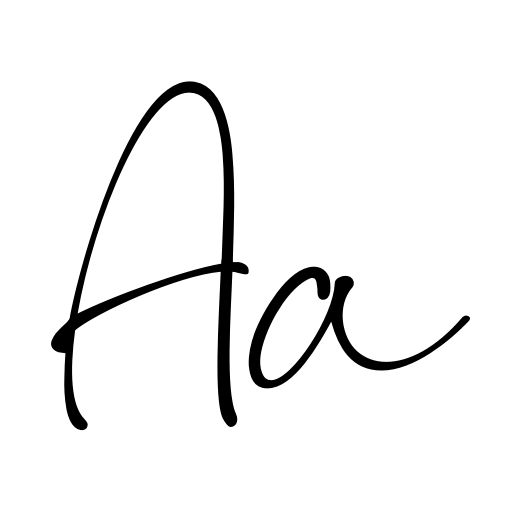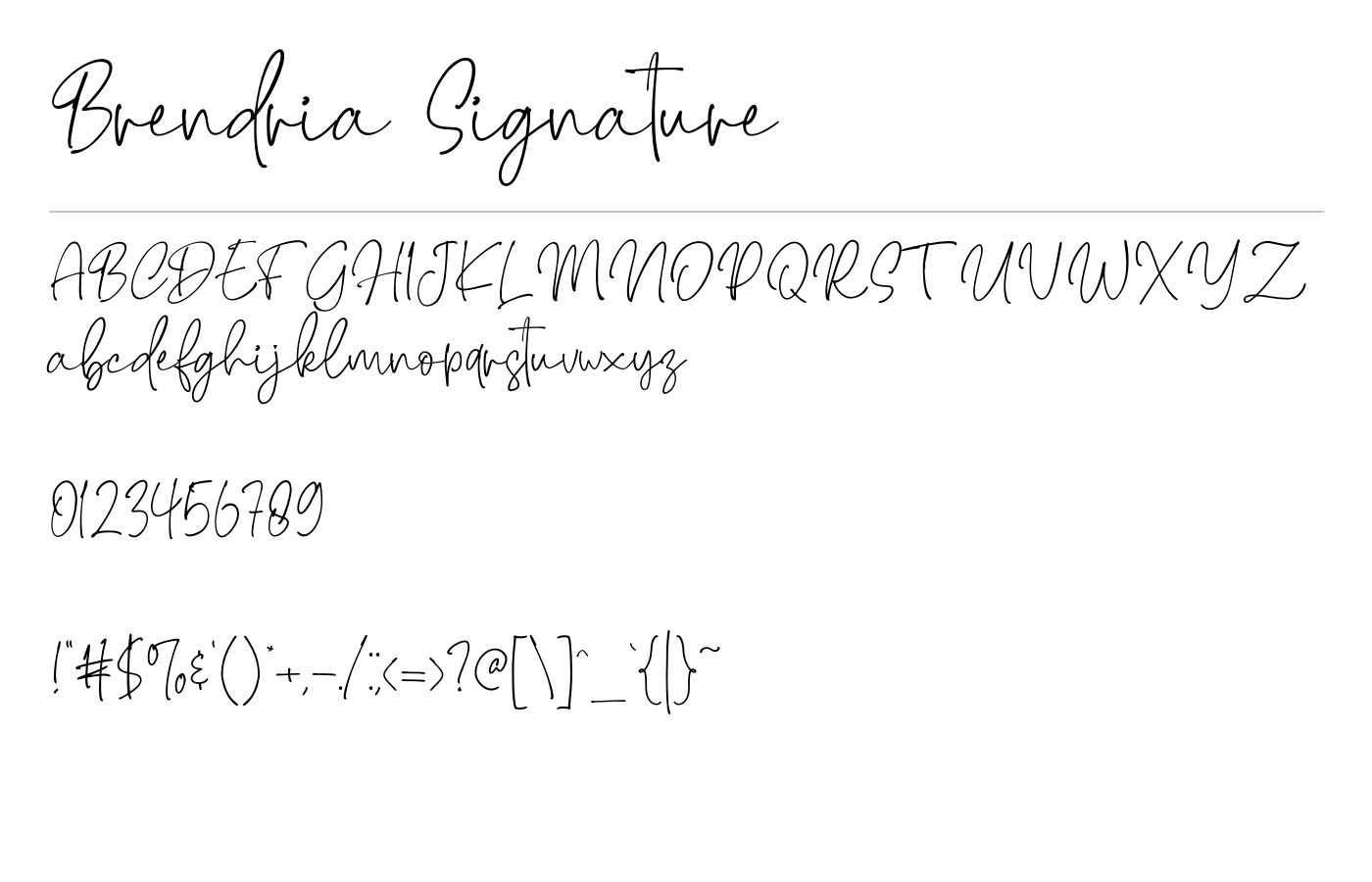
Brendria Signature is a delicate, handwritten script font that mimics natural, elegant handwriting with thin, airy strokes and a graceful flow. Its light weight and narrow letterforms give it a refined, personal touch, making it ideal for branding, invitations, social media, and any design that seeks a sophisticated yet approachable feel. This font works beautifully in logos and headlines where a stylish, modern signature style is desired.
Brendria Signature Font
About Brendria Signature Font
| Font family | Brendria Signature Font |
| Designer | Rometheme Studio |